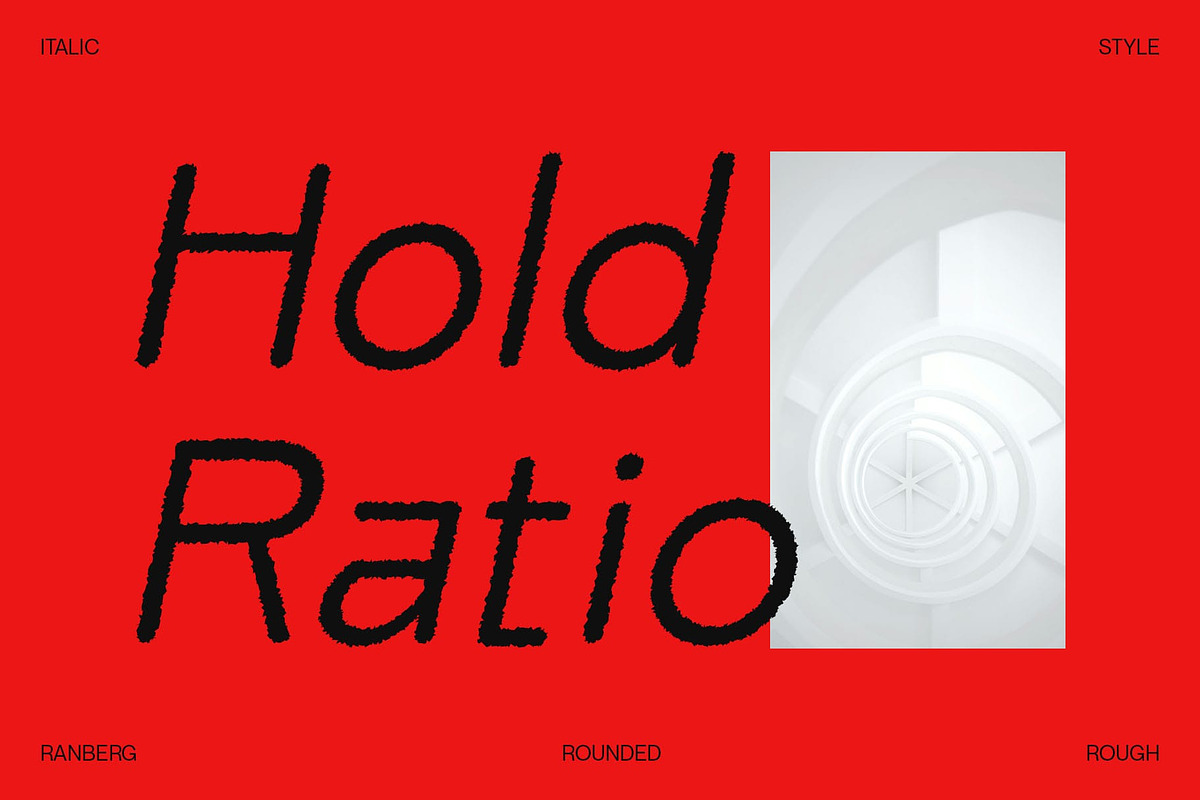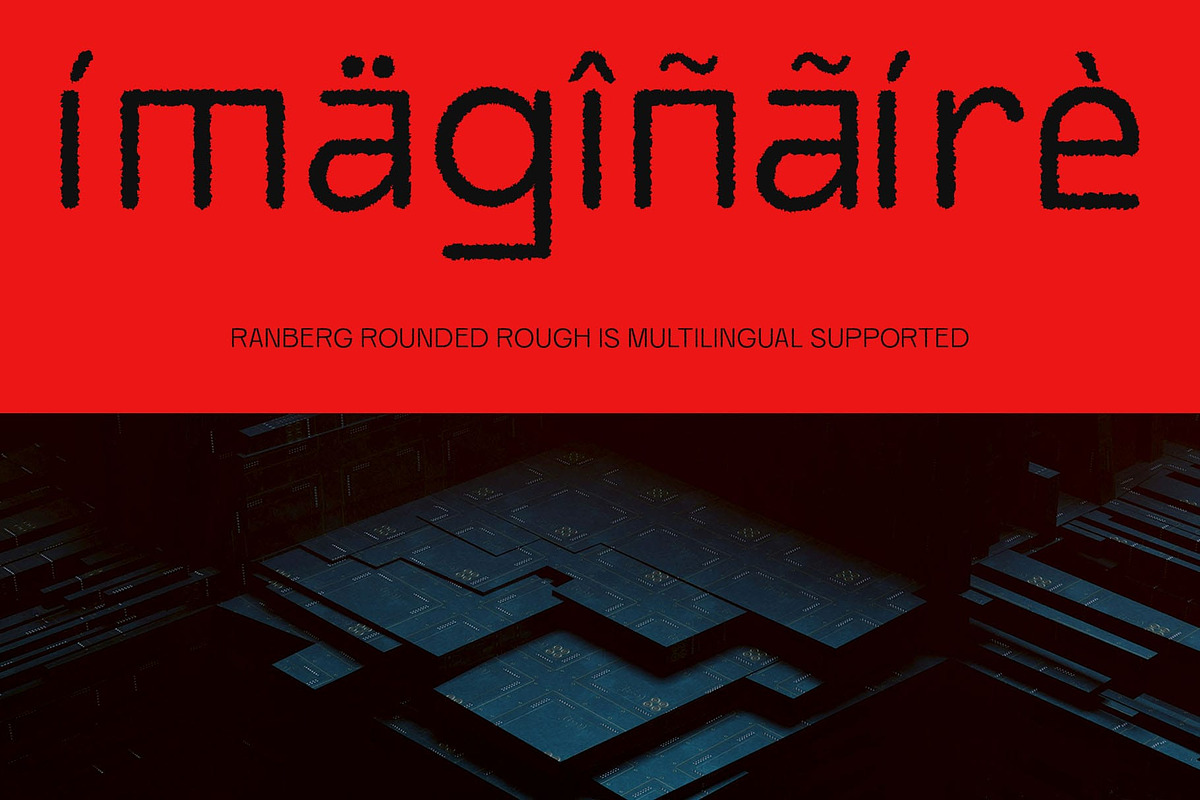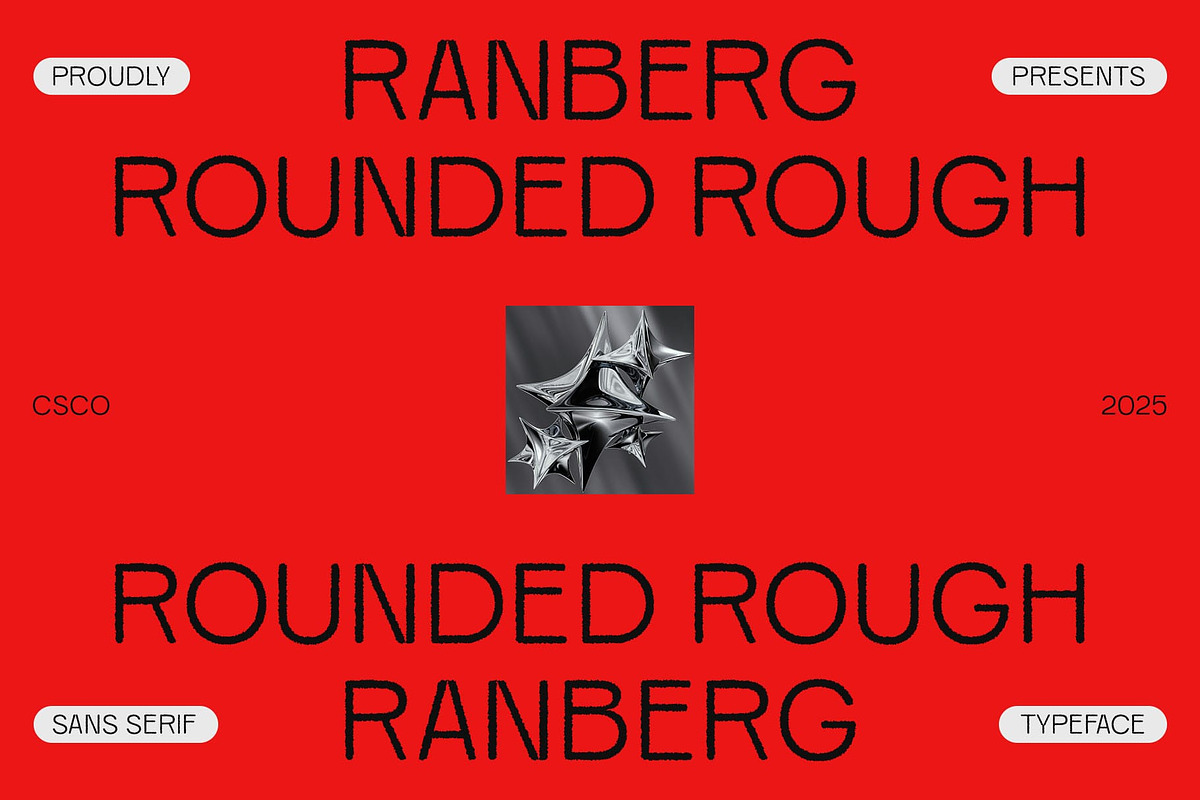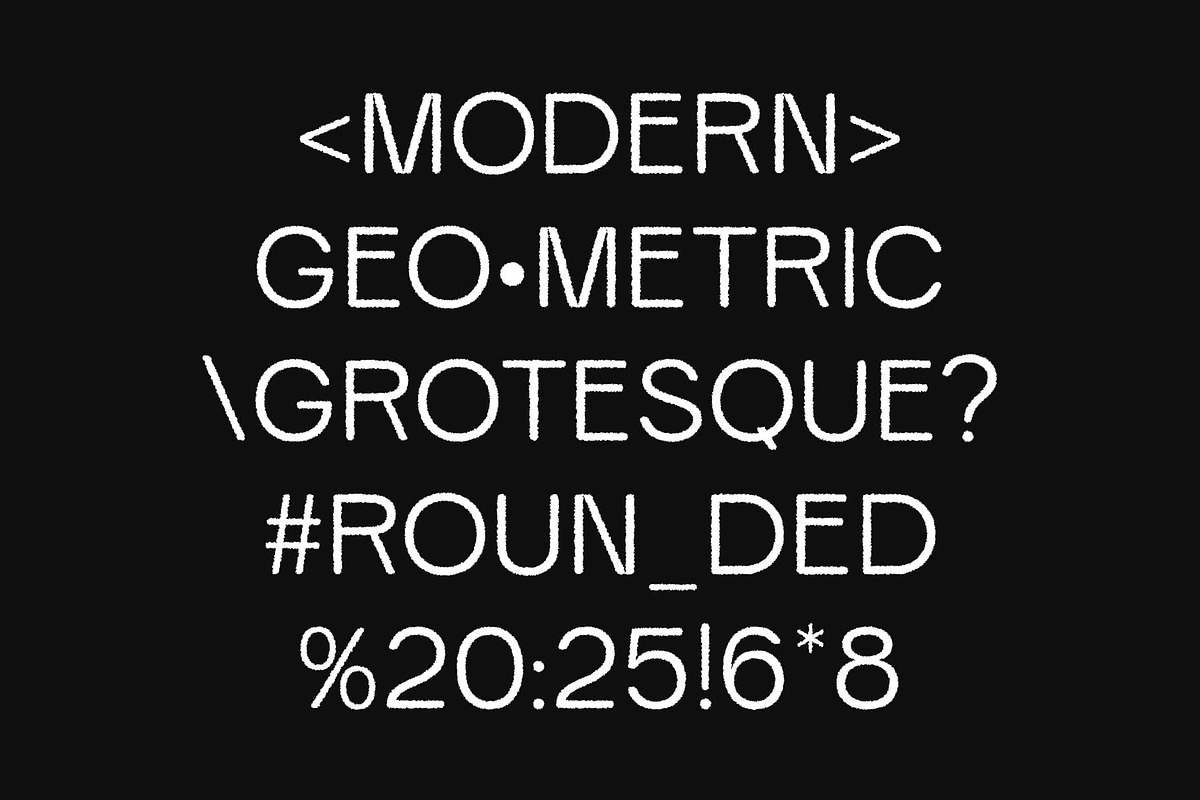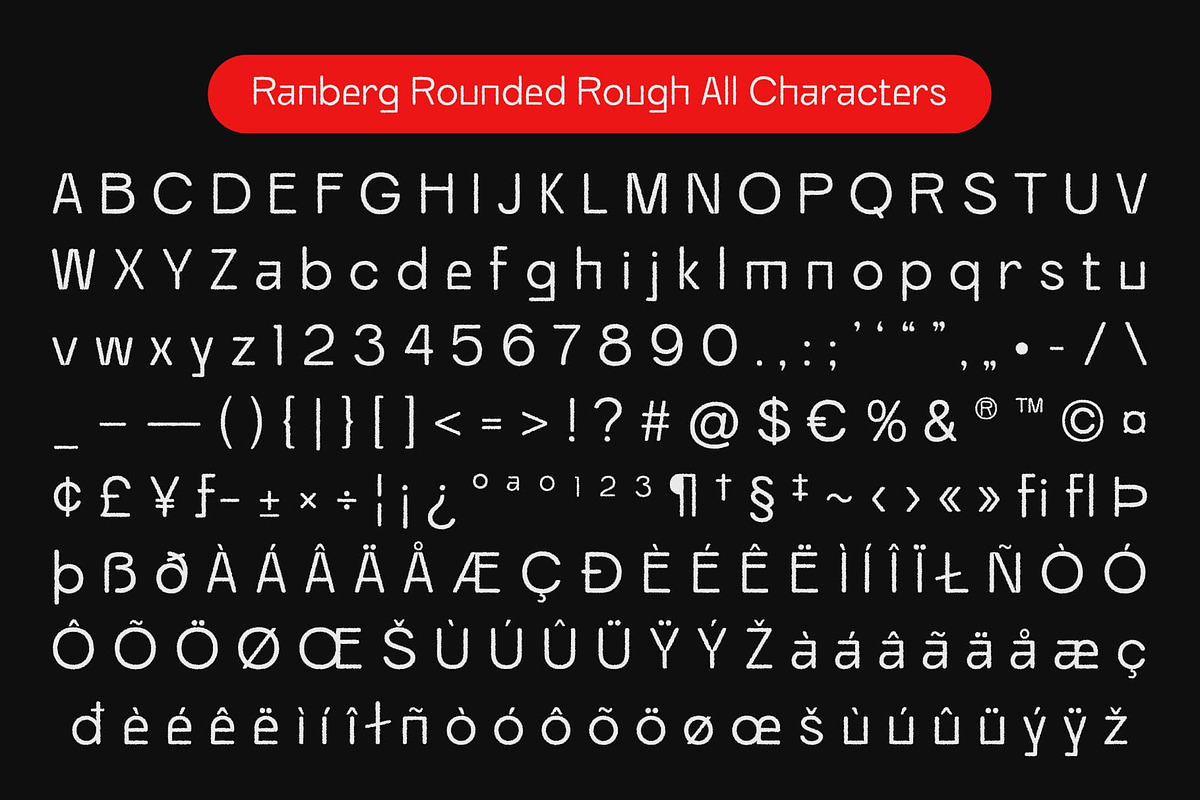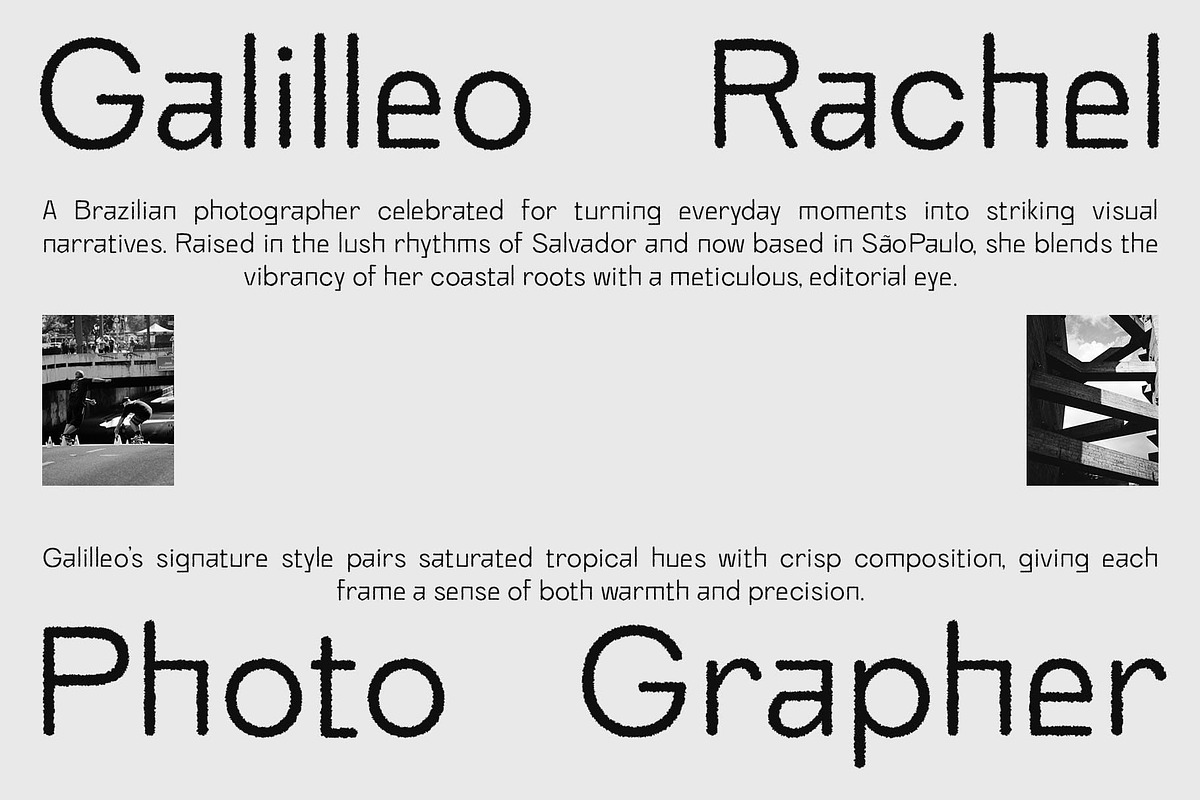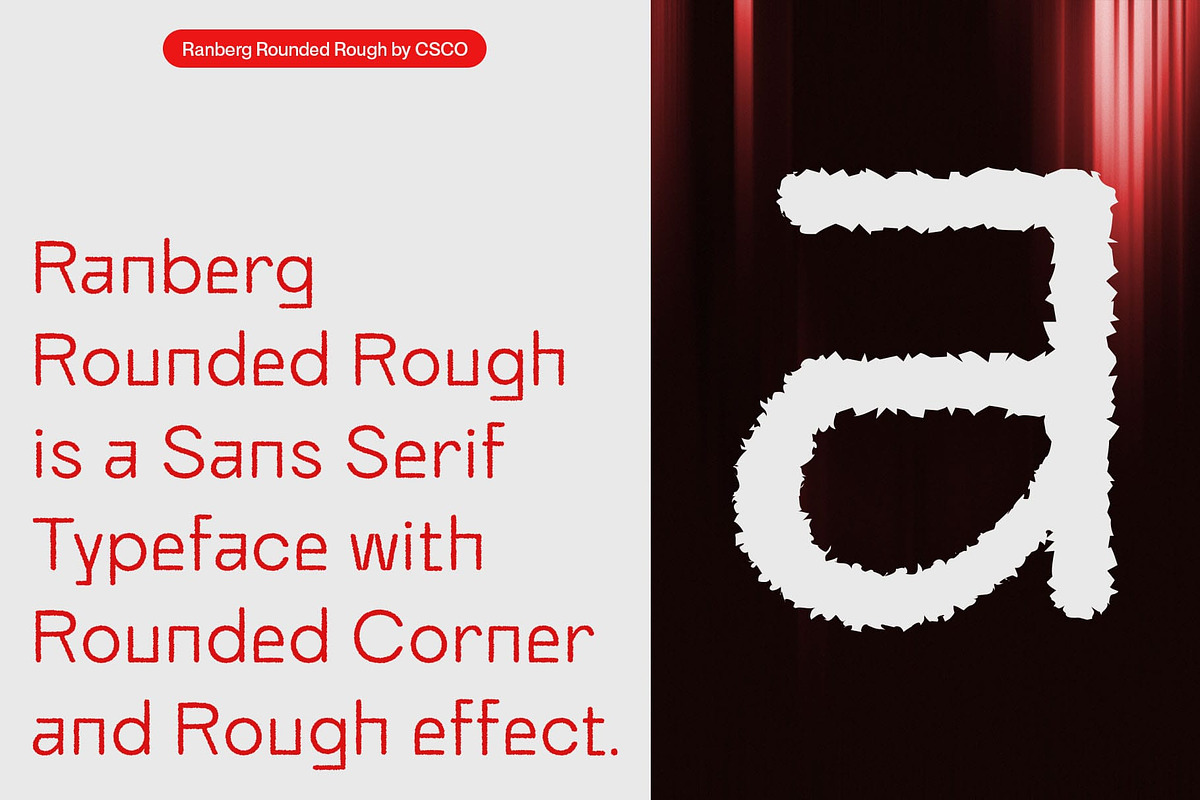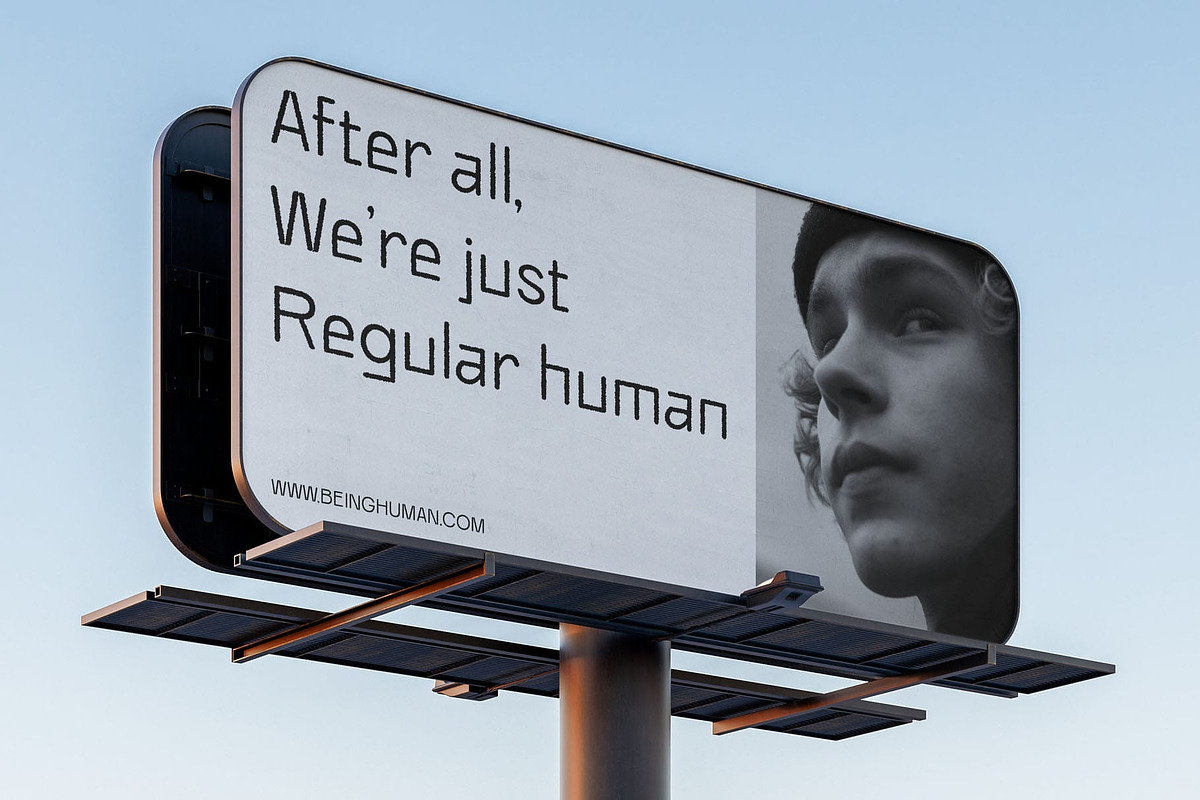
Ranberg Rounded Rough
Ranberg Rounded Rough – Modern Clarity with a Textured Edge
Geometric-Grotesque Foundation for Modern Clarity Ranberg Rounded Rough is a modern sans-serif font built on a clean geometric-grotesque structure, offering balanced proportions and high legibility. Its minimalist letterforms maintain a sleek and contemporary tone, suitable for both digital and print environments.
Rounded Terminals for a Friendly Appearance The soft, rounded terminals introduce warmth and approachability to the otherwise precise design. This feature makes the font feel inviting and versatile—ideal for brands and layouts aiming to appear modern yet personable.
Rough Texture for Organic Personality The rough effect brings an expressive, hand-crafted texture that adds depth and uniqueness to each letterform. It subtly breaks the perfection of the geometry, creating a tactile, artistic feel that enhances the font’s overall character. The added rough effect brings a tactile, handcrafted quality to the font, enriching its visual personality. It contrasts beautifully with the clean lines, offering a more organic, expressive dimension. This makes the font stand out in designs that value authenticity and artistic flair without losing clarity.
Perfect for Distinctive, Clean-Cut Designs This stylish font is well-suited for a wide range of creative applications—including brand identities, product packaging, artistic posters, and web interfaces. It offers a modern, humanized style that’s clean, bold, and full of personality, making it the perfect choice for designers looking to balance structure with soul.